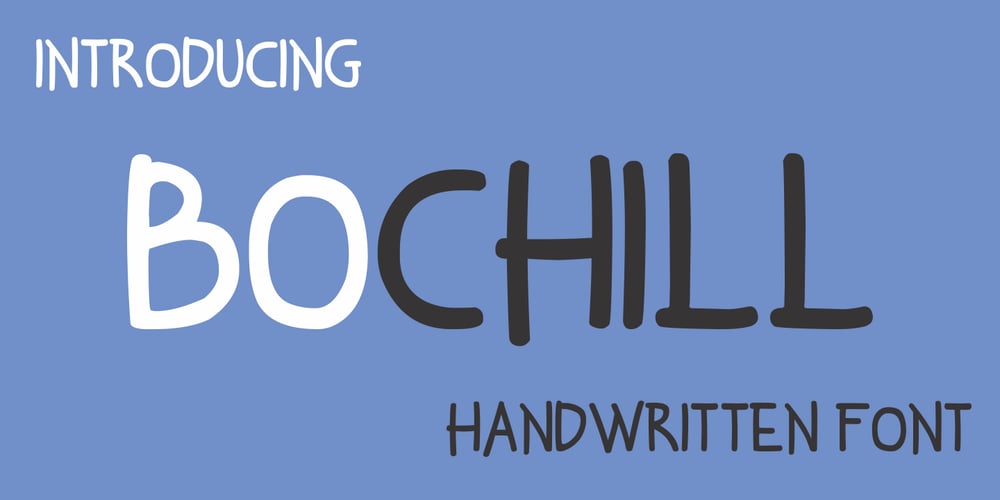
Bochill
Bochill font
Bochill Font Family was designed by Irsad Waroid Musyaffa and published by Iwm Design. Bochill contains 2 styles and family package options. Bochill is a sweet and charming script font that’s perfect for adding a sweet vibe to your next design idea. Get inspired by its unique style!